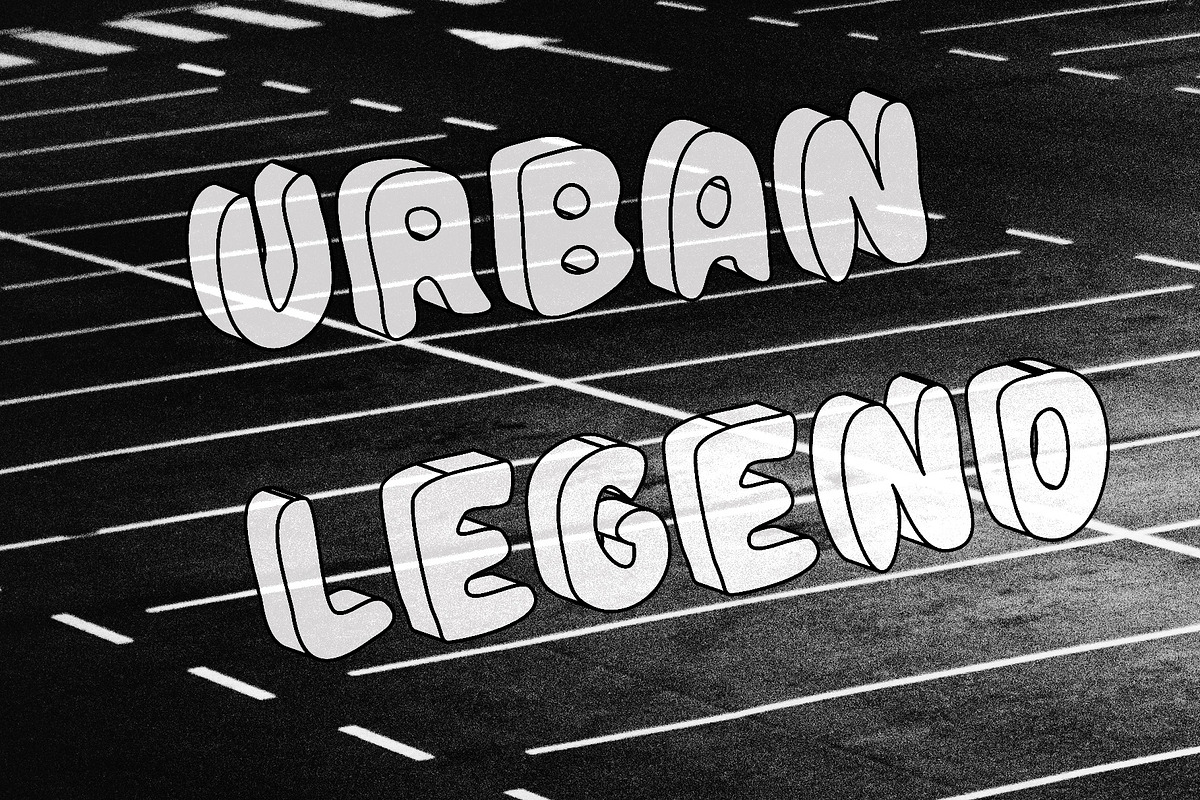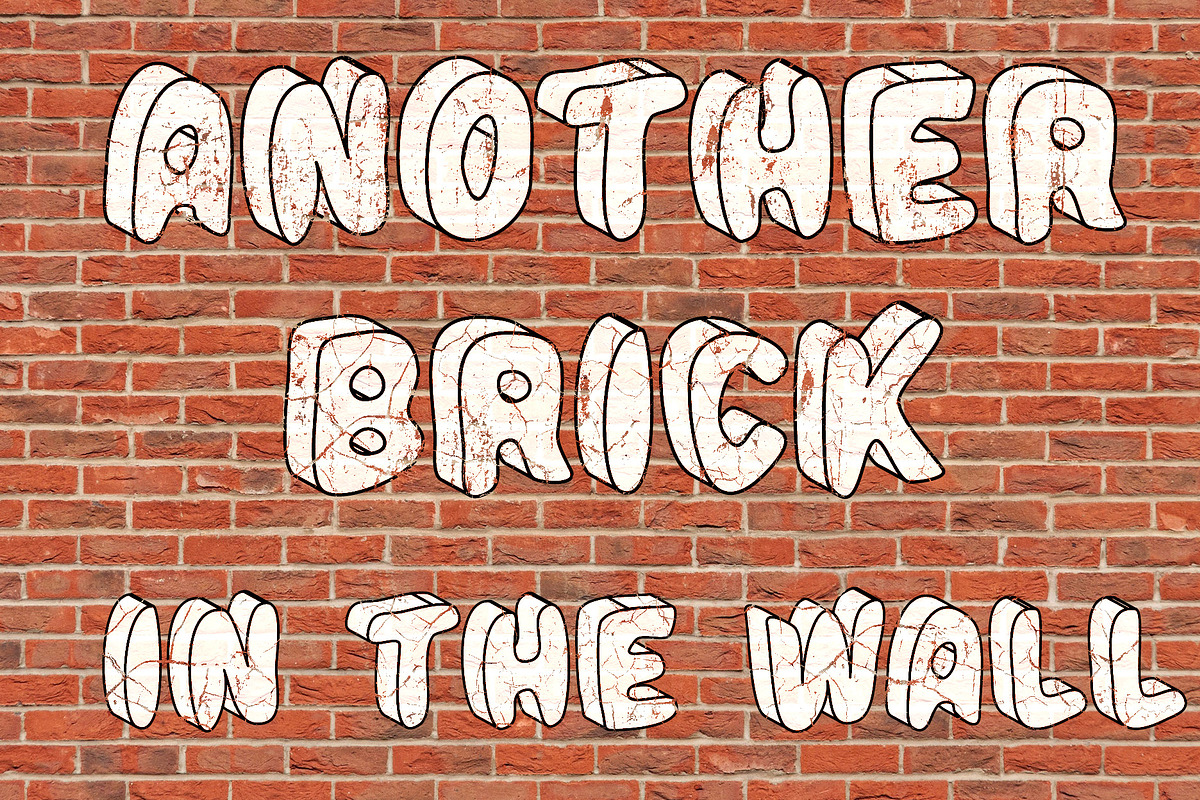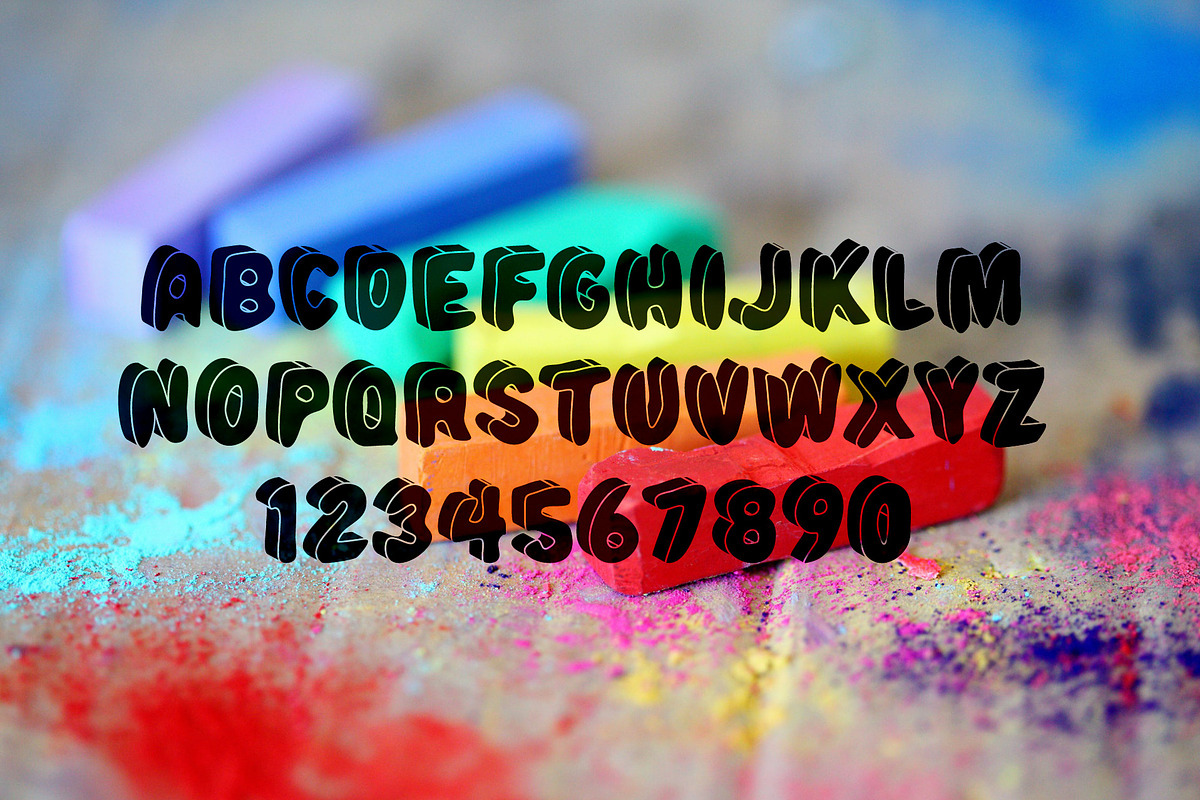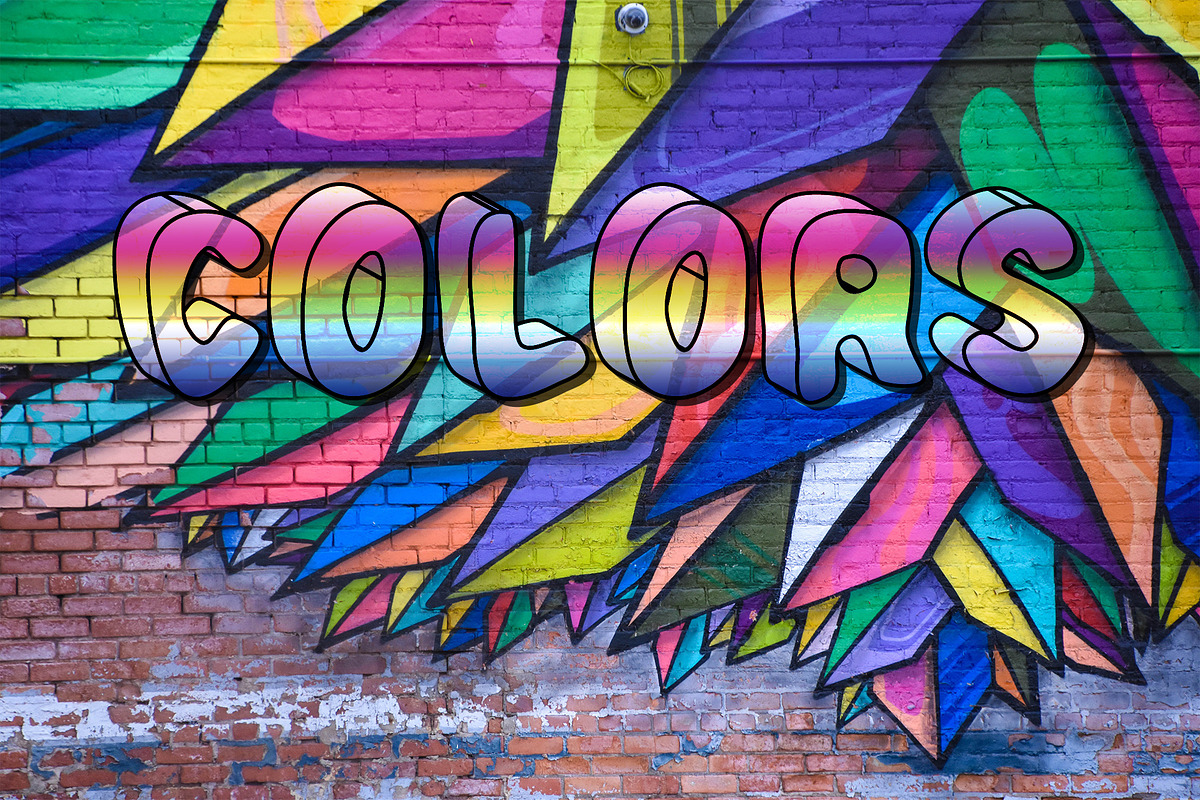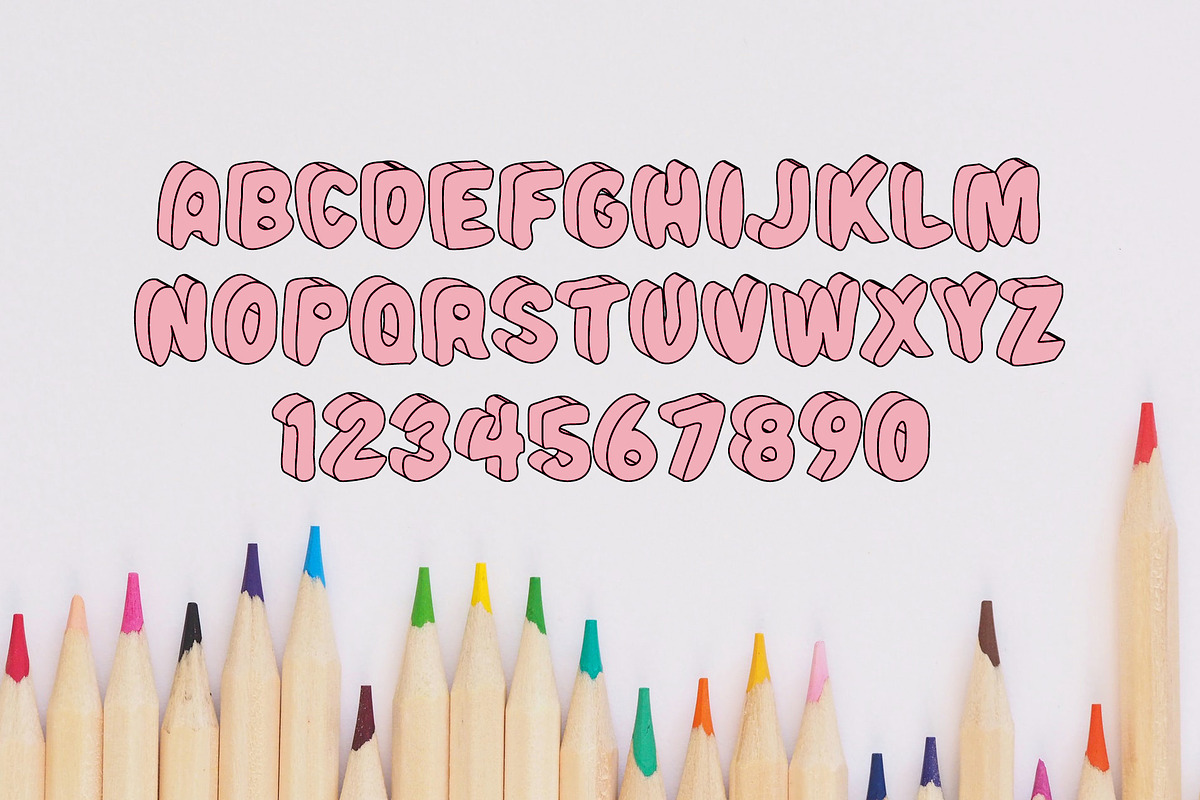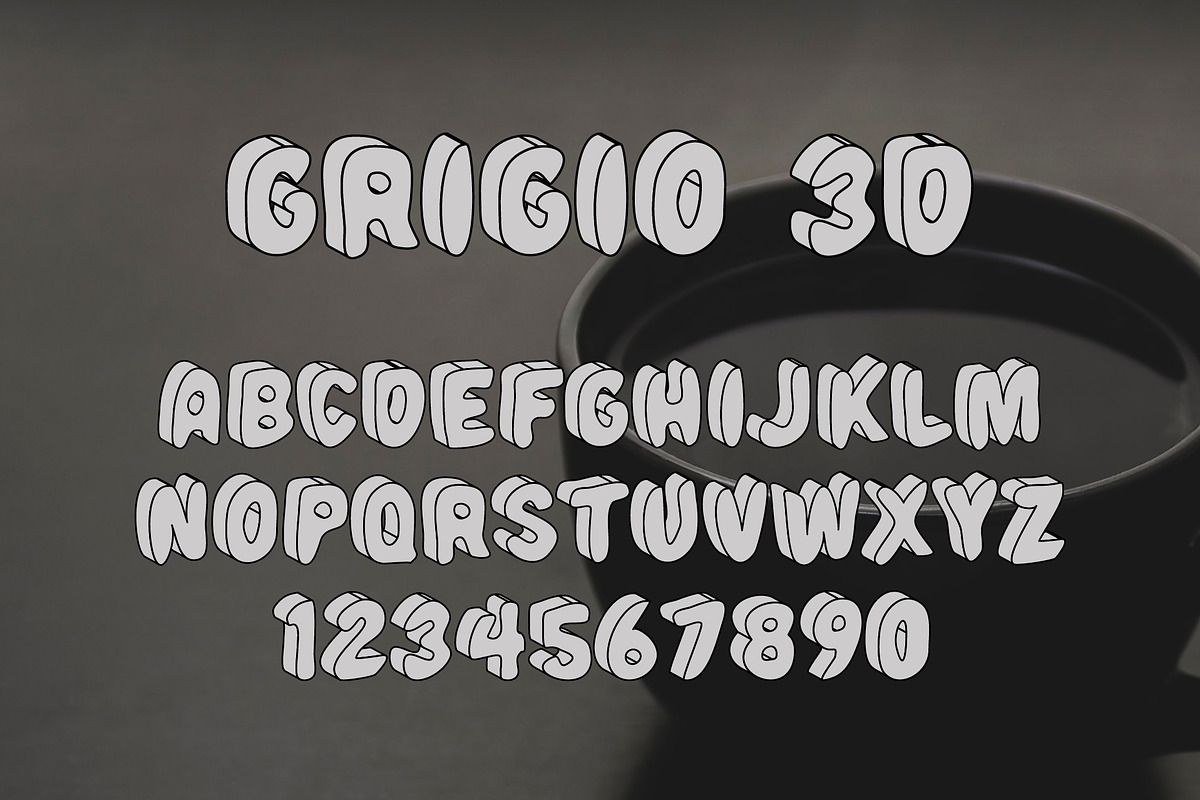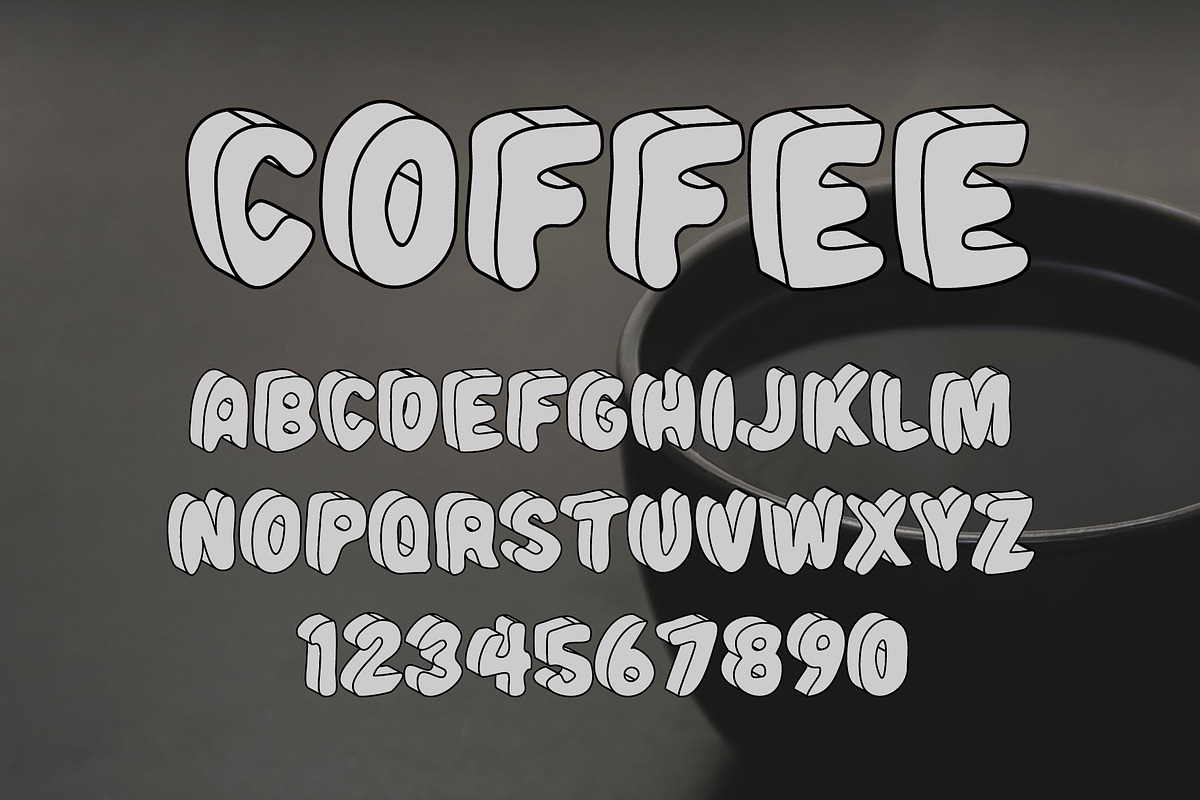
Grigio 3D SVG Color Font
Grigio 3D (SVG font) is a color sans serif.
Grigio 3D SVG Color Font by vladocar fits naturally into Branding, posters, packaging, typography.